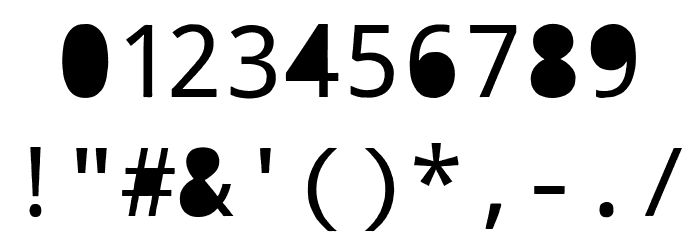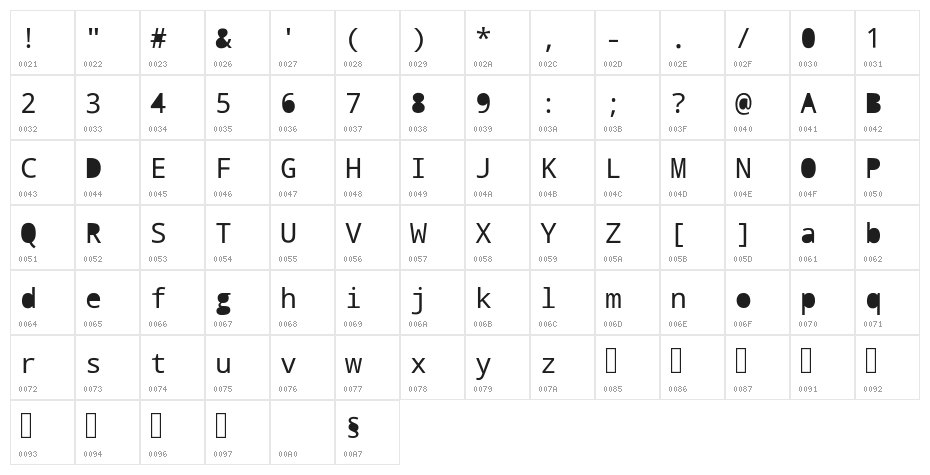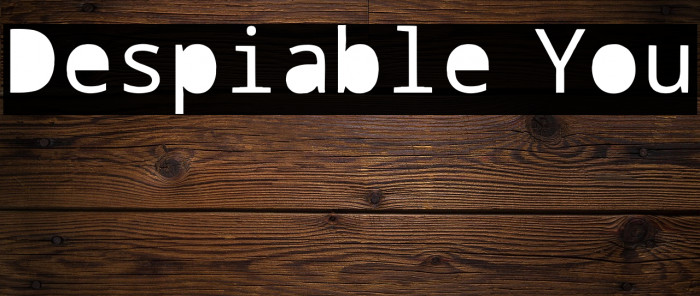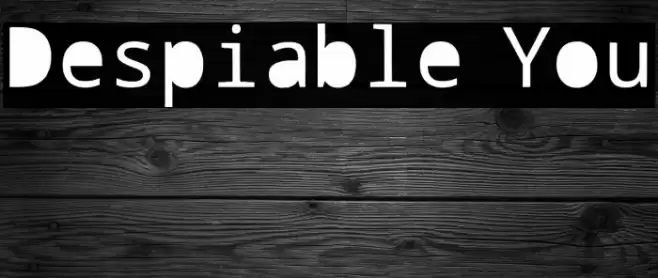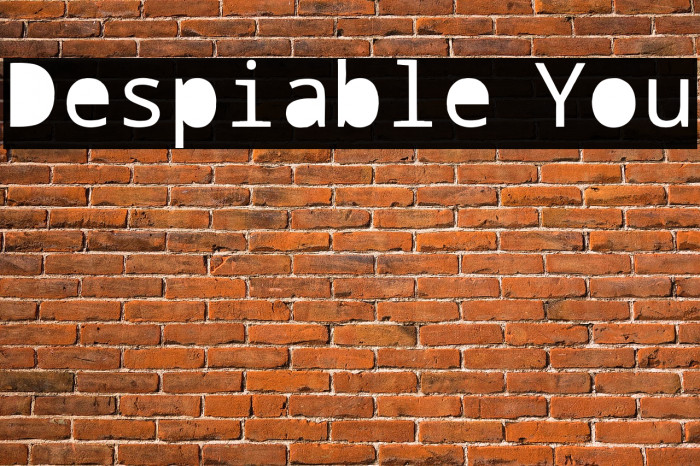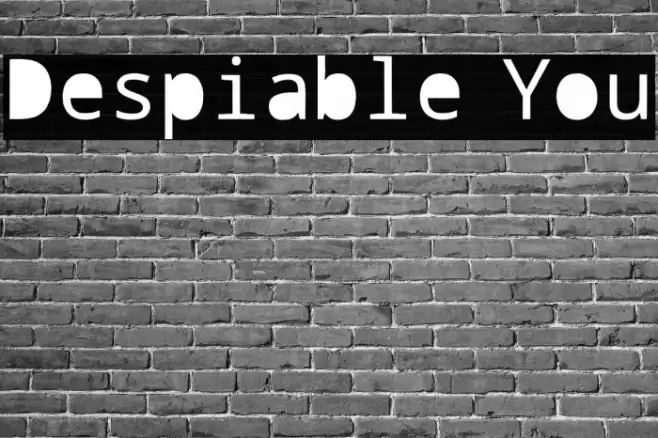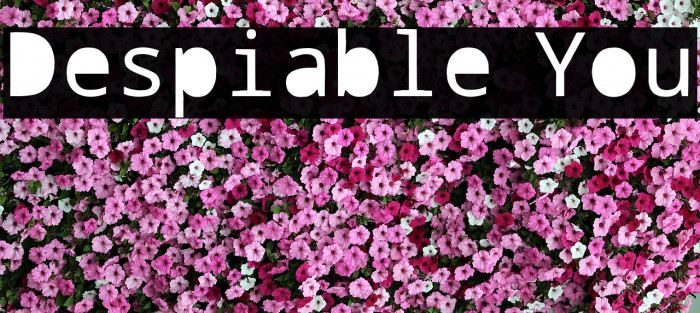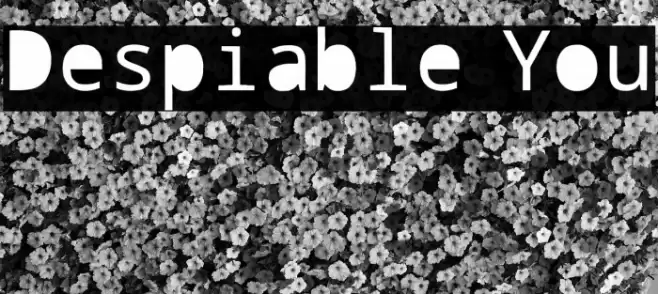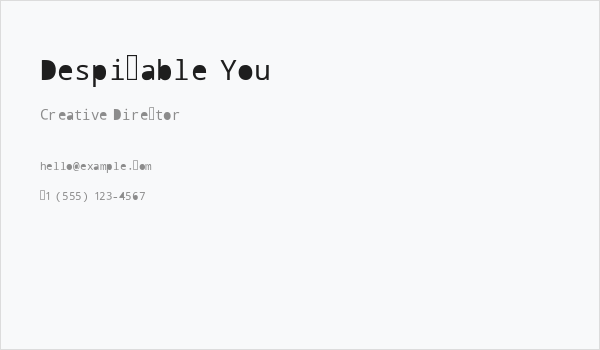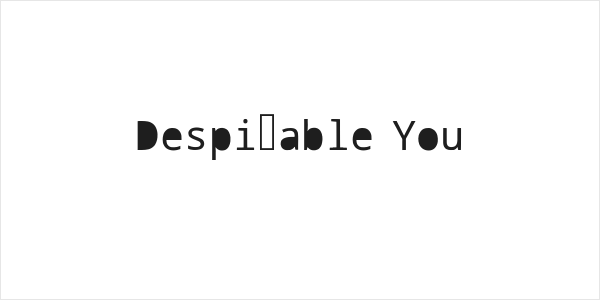
Despicable You Font
Despicable You Description
This playful and bold typeface features a unique blend of rounded and angular elements, creating a distinctive and eye-catching appearance. The uppercase letters are characterized by their strong, geometric shapes, while the lowercase letters maintain a more rounded and approachable feel. The numerals are consistent with the overall style, offering a bold and easily readable design. Special characters are well-integrated, maintaining the font's playful yet structured aesthetic. This typeface stands out with its high contrast between thick and thin strokes, adding to its dynamic and engaging look.
| Overall Style | Playful, Modern |
| Proposed Projects | Ideal for children's books, playful branding, posters, and creative advertising. |